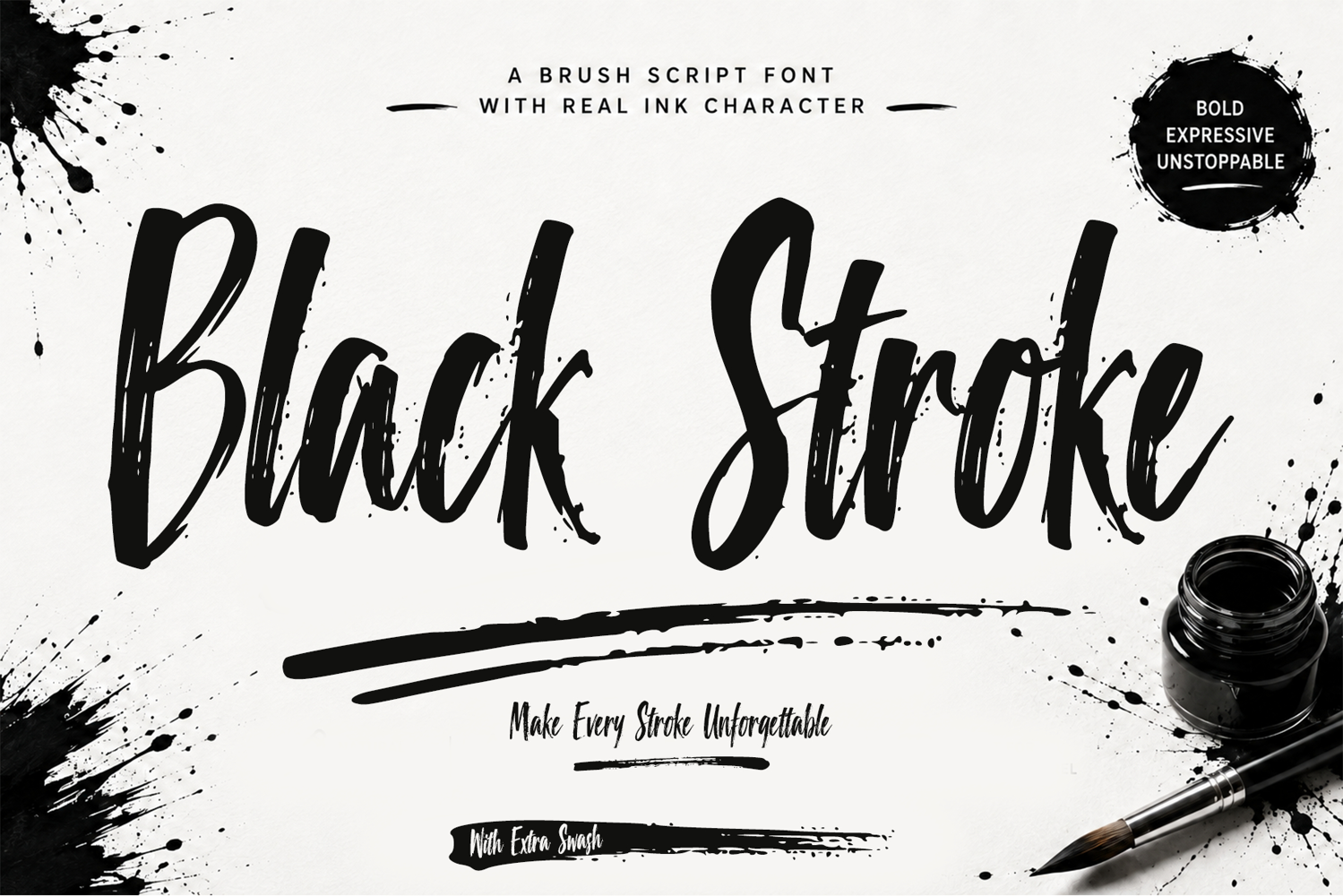
Black Stroke is a bold and expressive brush script font inspired by the raw character of real ink and hand-painted lettering. Strong brush strokes, rough edges, natural ink textures, and dynamic details create an authentic handcrafted appearance.
The font comes with extra swash underline elements and ink splatter accents, adding more movement, energy, and artistic character to lettering compositions.